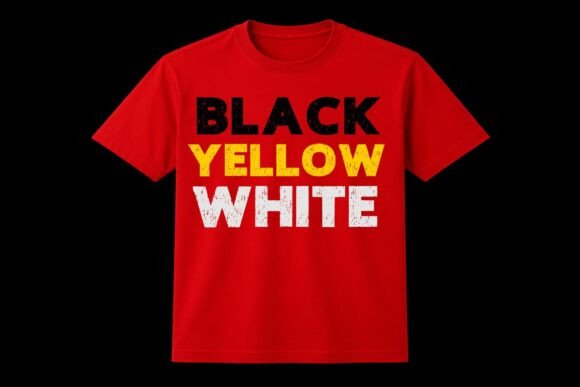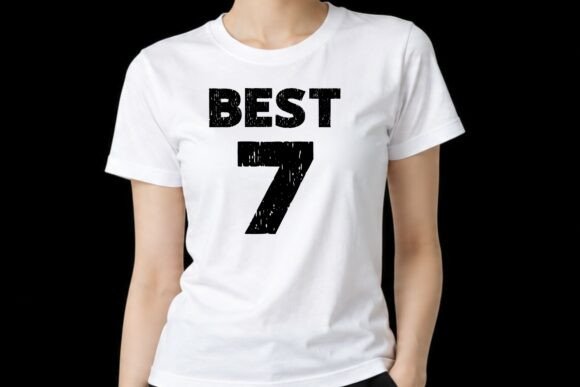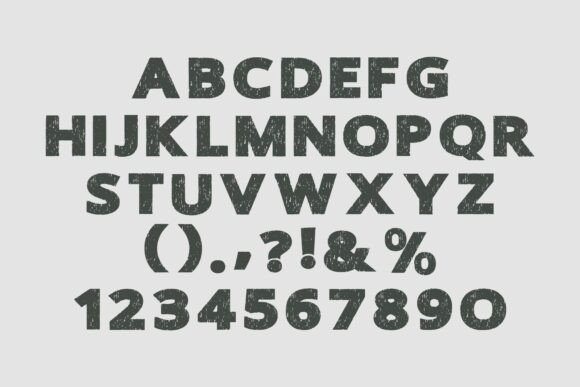
Introduction to Rough Grunge Font
Rough Grunge Vintage Font is a bold distressed display typeface designed with a rugged retro aesthetic and textured grunge details.
Its strong letterforms and worn-out appearance make it perfect for posters, streetwear, branding, logos, album covers, packaging, and vintage-inspired creative projects This font delivers a raw urban feel combined with classic retro typography, creating a striking and authentic visual impact.
Key Features of Rough Grunge Font
Why Choose Rough Grunge Font?